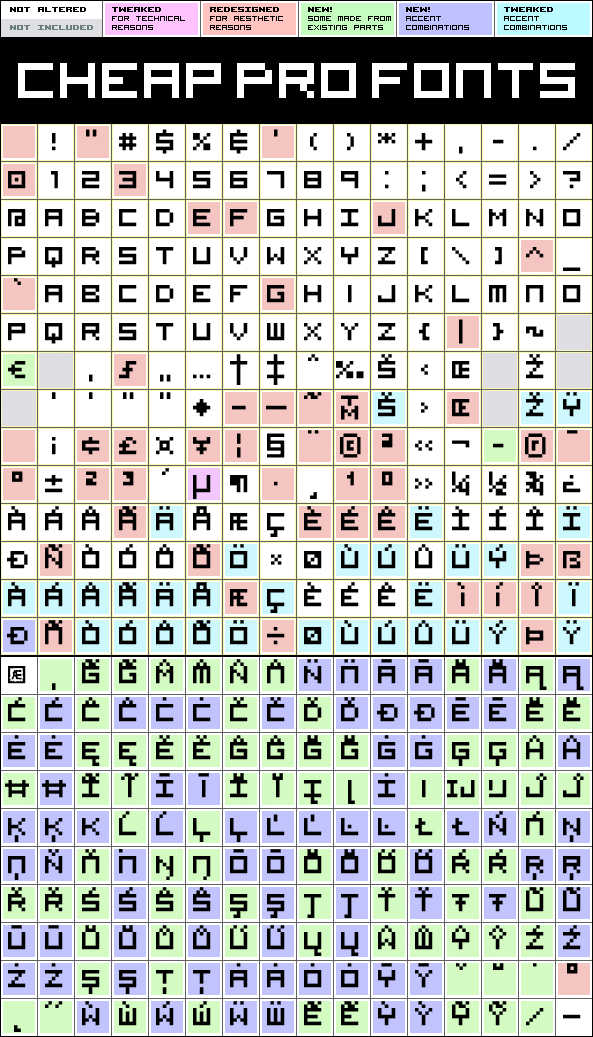
Visitor BRK Ten Pro
Visitor BRK Ten Pro by Brian Kent
377 glyphs!
(215 in original)
87 class kernpairs
= 2193 kerning pairs
(none in original)
Description:
This is the first true pixel-font released by CheapProFonts. It may not be the first font based on a 5x5 pixel grid, but it probably has the best language support ;)
The glyphs have all been optimized for Flash (by making all shapes slightly overlapping) and should render sharp and perfect when set in 10px size (or multitudes of 10). As with all pixelfonts: make sure to place the text at coordinates with whole numbers, and always use left (and NEVER centered) alignment.
Visitor BRK Ten Pro is a professionally reworked font that contains an extended character set for setting text in 65 languages requiring more than the basic A-Z!